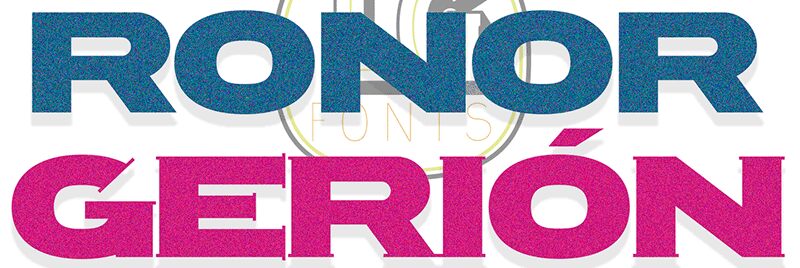
Ronor Gerion, designed by Manuel Lage, is an extraordinary extra-bold and extra-expanded font that commands attention with its strong and expansive presence. With its robust weight and wide width, this font is perfectly suited for projects that require a bold statement and a sense of grandeur.
Ideal for titles and headlines in magazines or newspapers, Ronor Gerion adds a touch of authority to any design. Whether used in branding materials or advertising campaigns, this font captivates the audience with its powerful visual impact.
Let Ronor Gerion be your go-to choice when you want to make a bold impression.